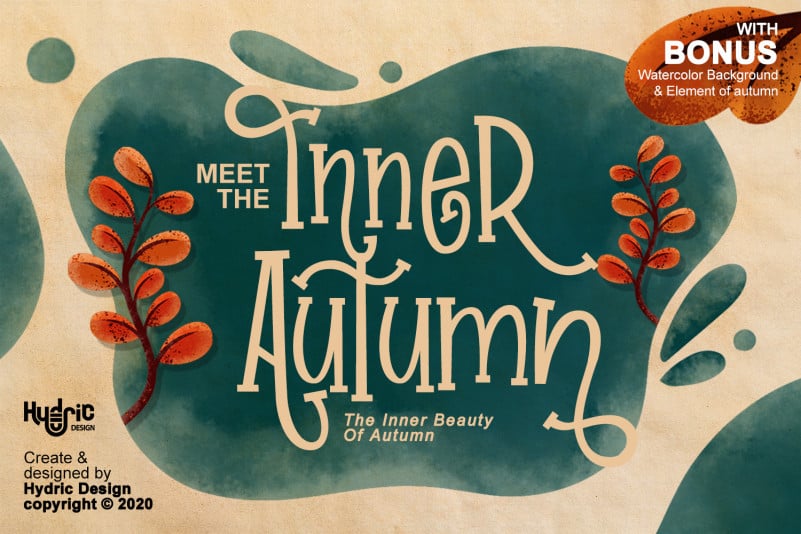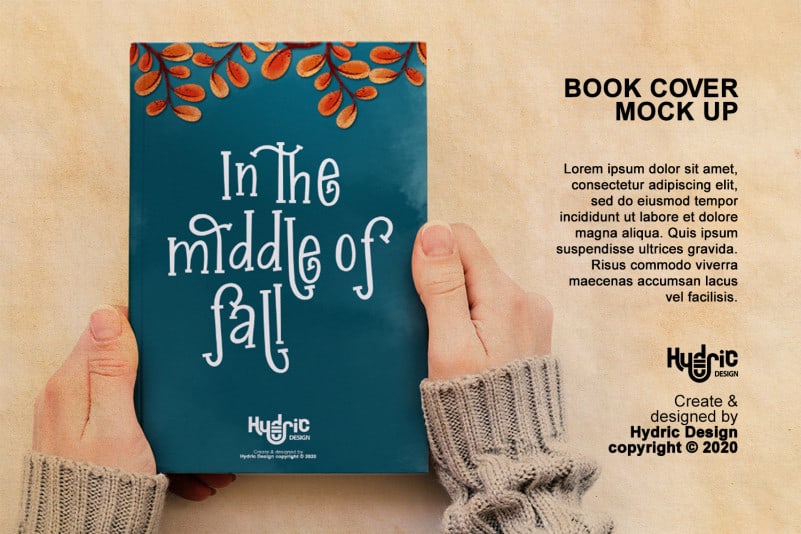
Inner Autumn Display Font
Inner Autumn Display Font is a reflection of Inner Beauty in Autumn Season, this display font with a fun & childish feel, inspired by a Children Book Story about the pure of love about autumn! Offers you a mystic and magical atmosphere to your design projects. Suitable for book/novel or movie title, logos & branding, social media posts, advertisements & product designs, etc.